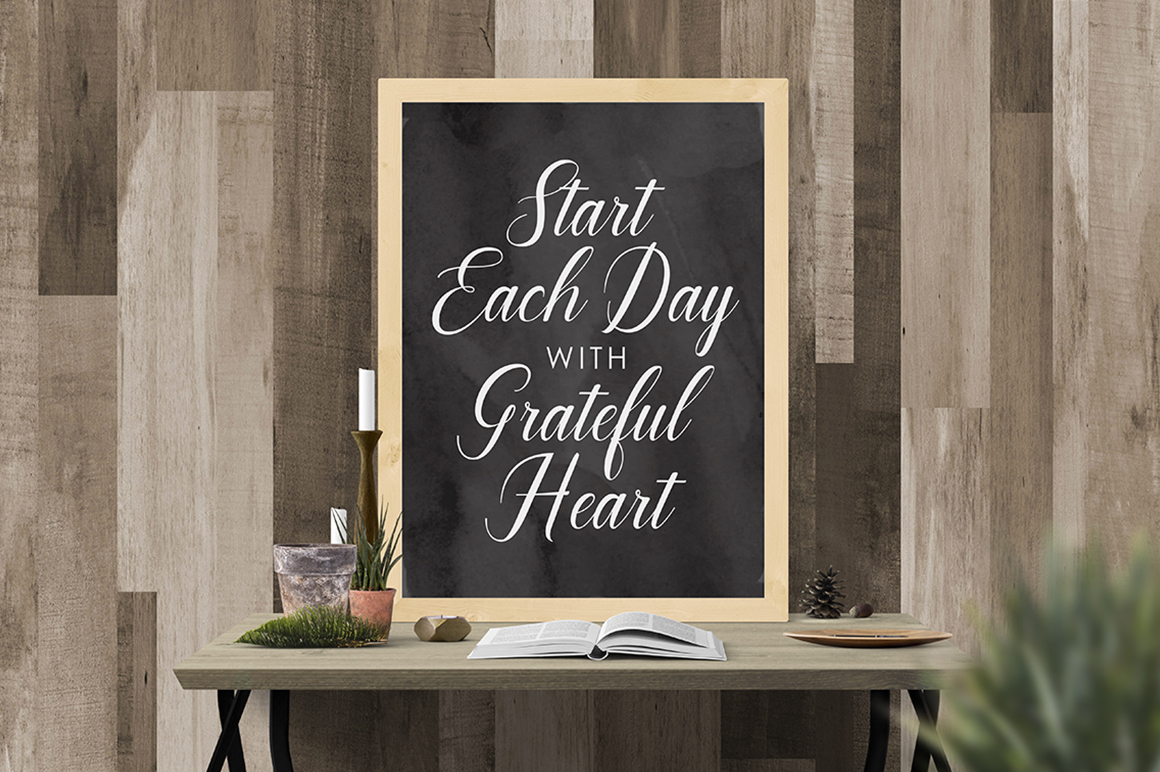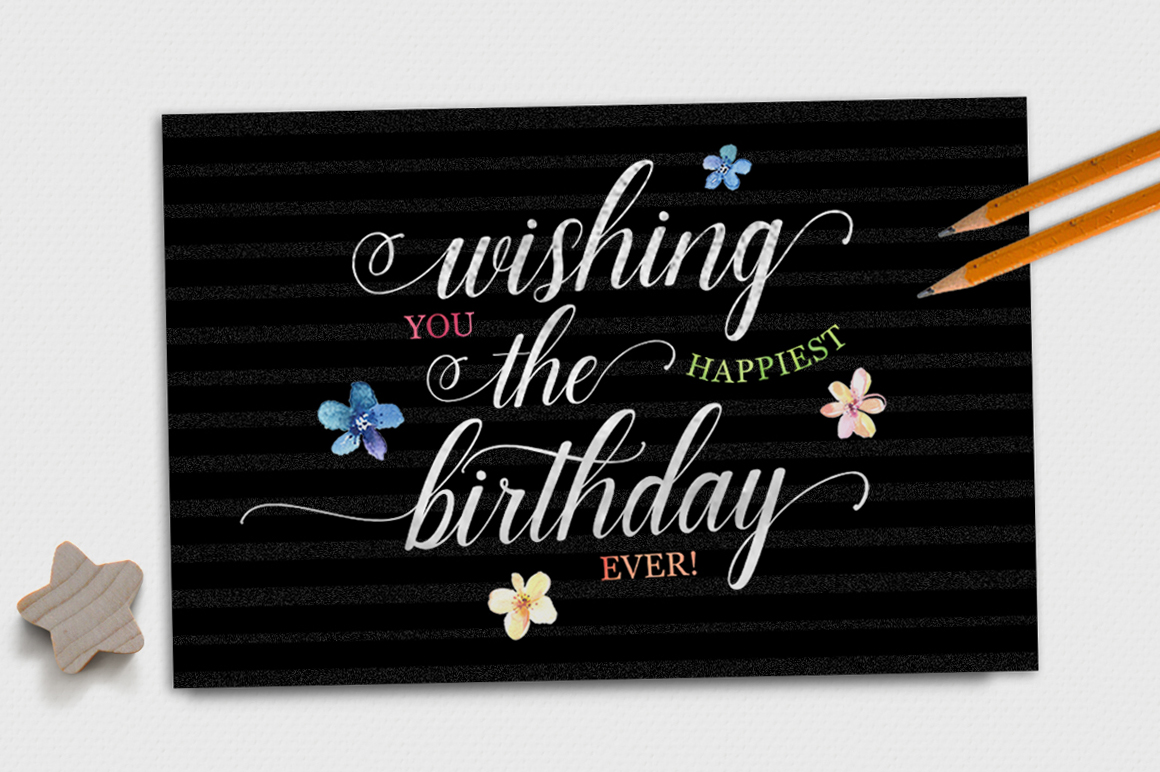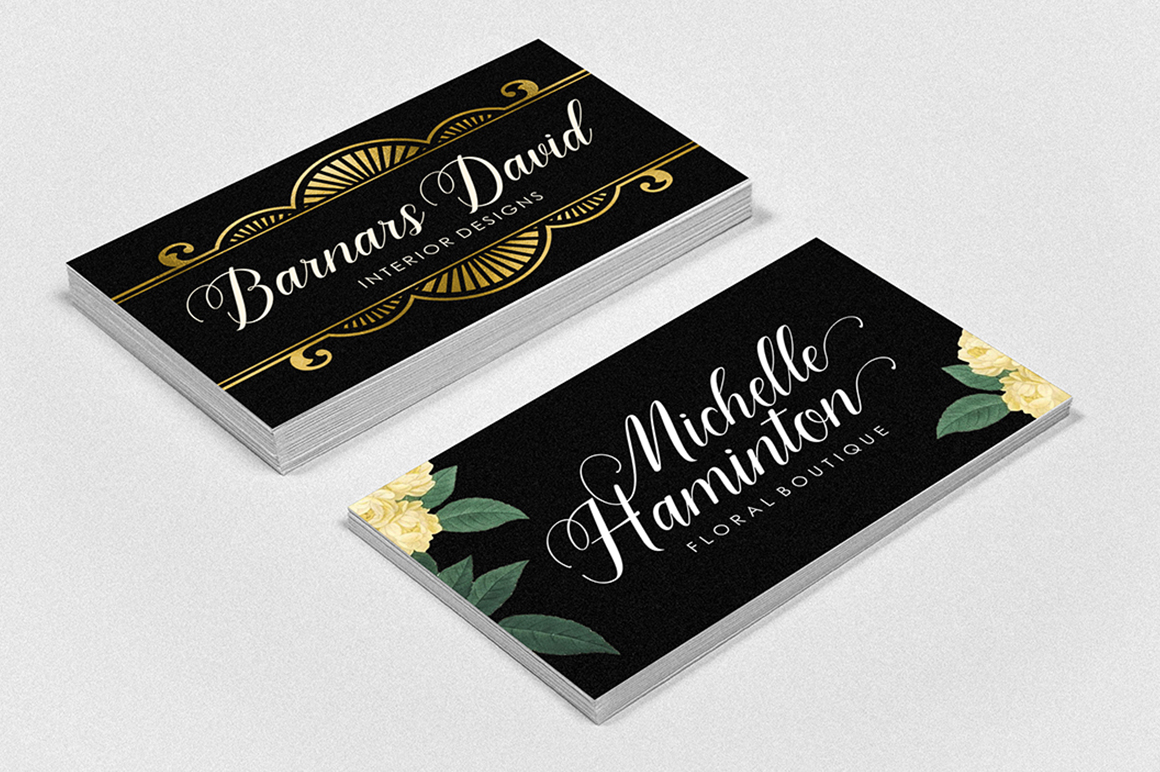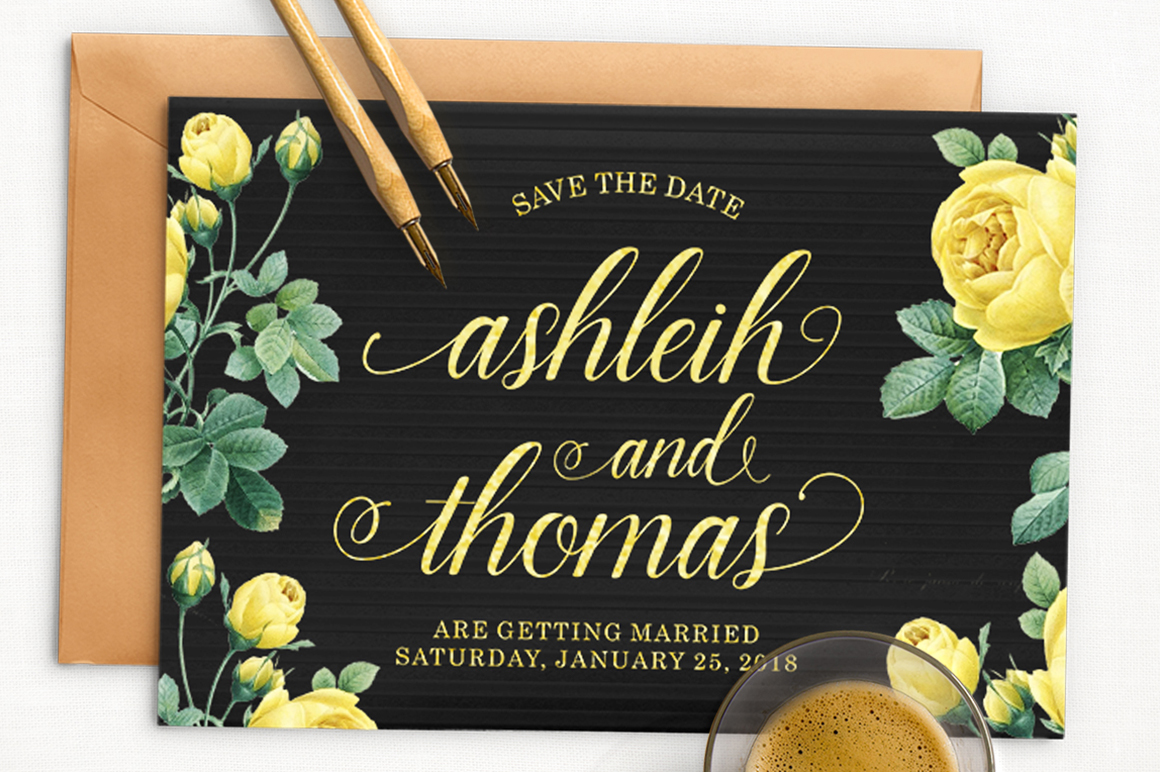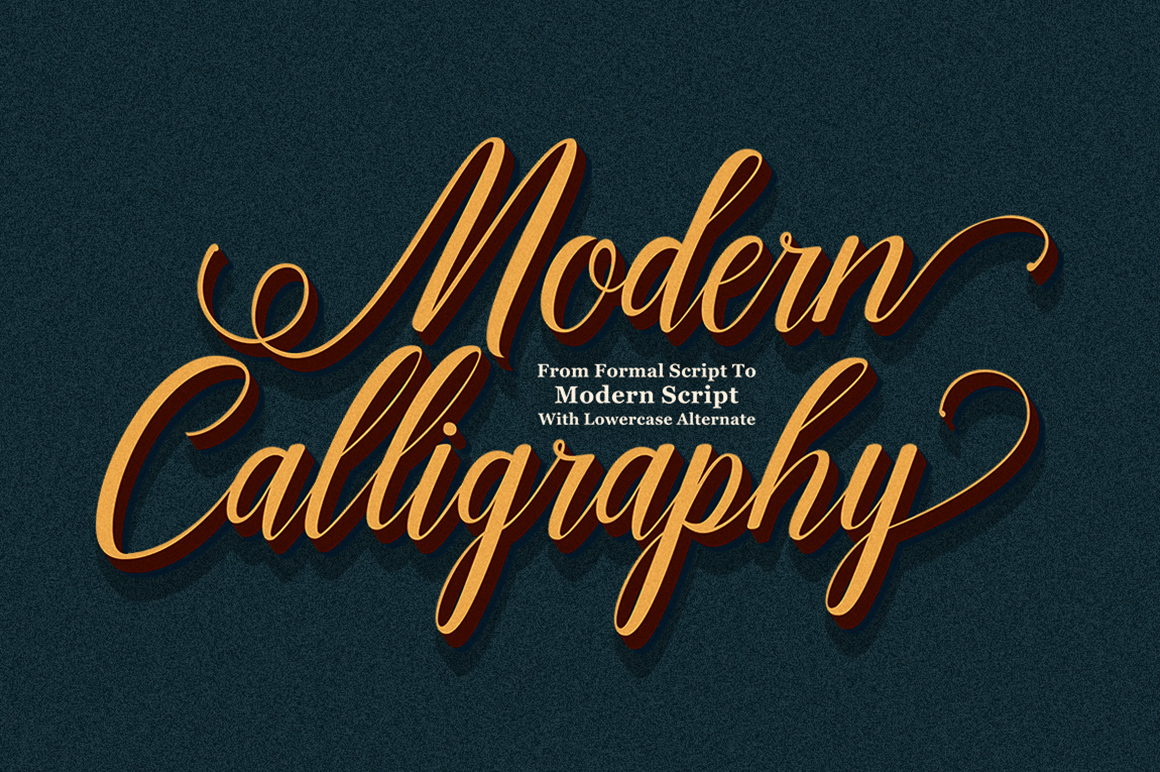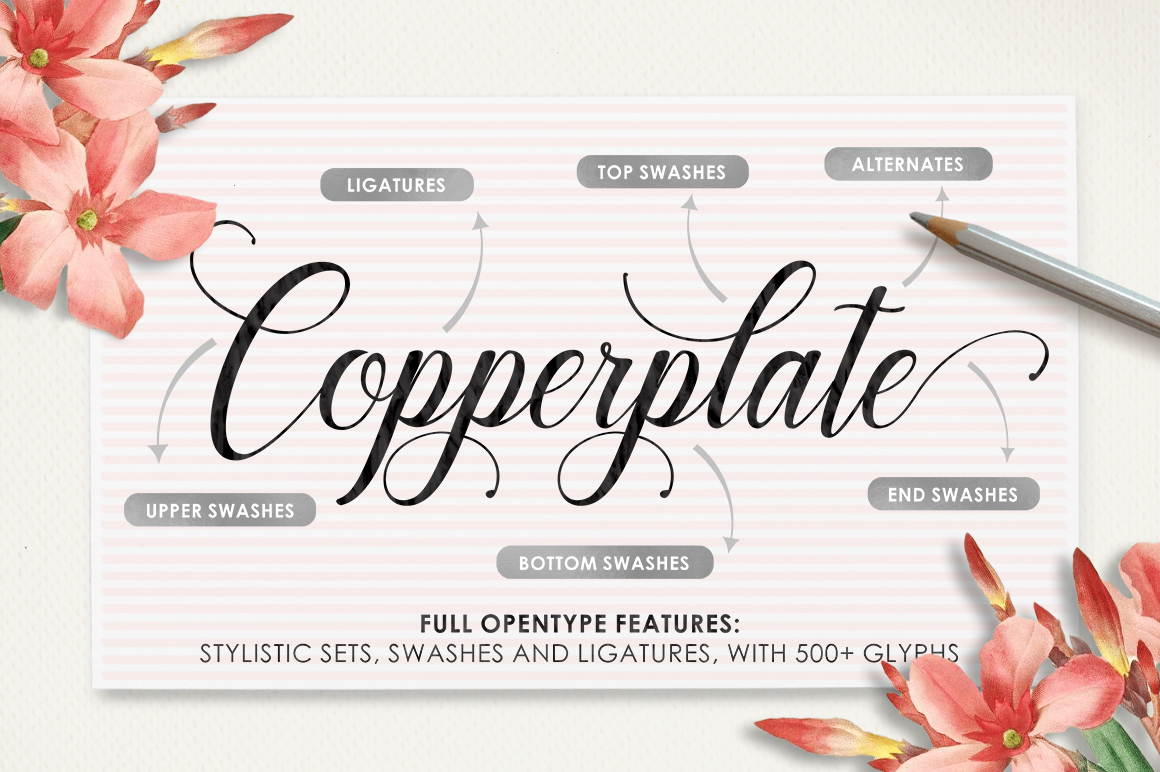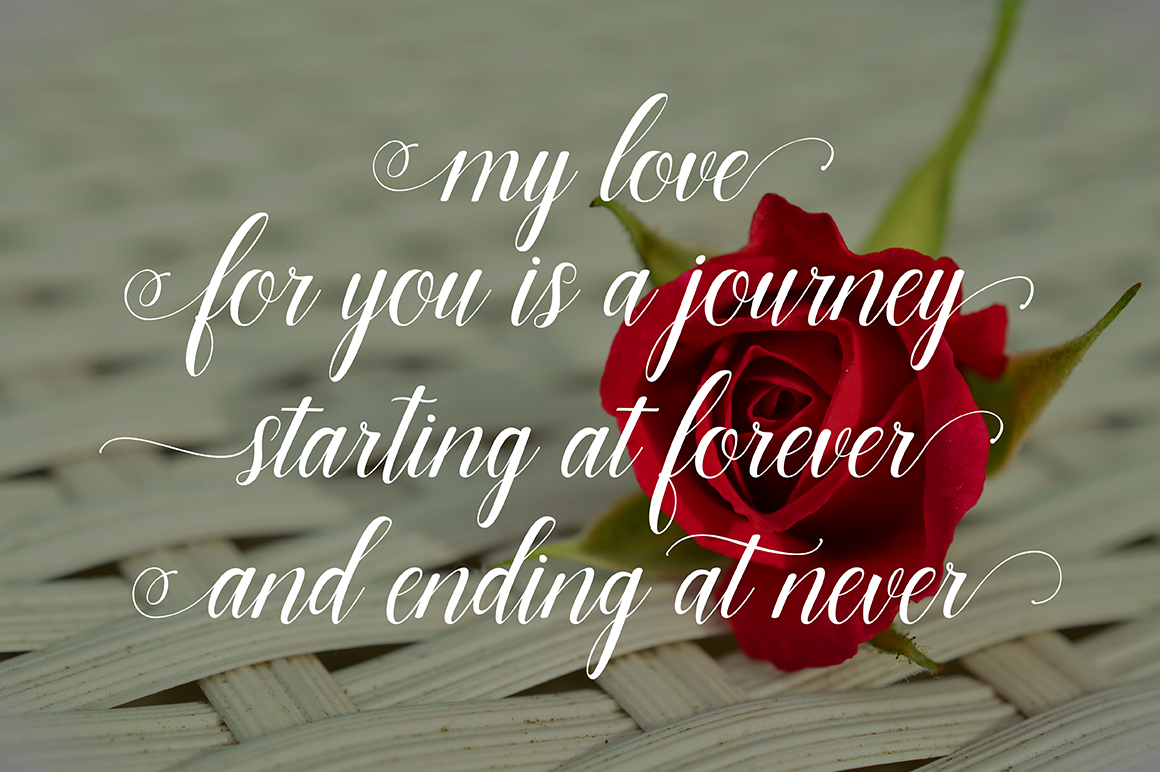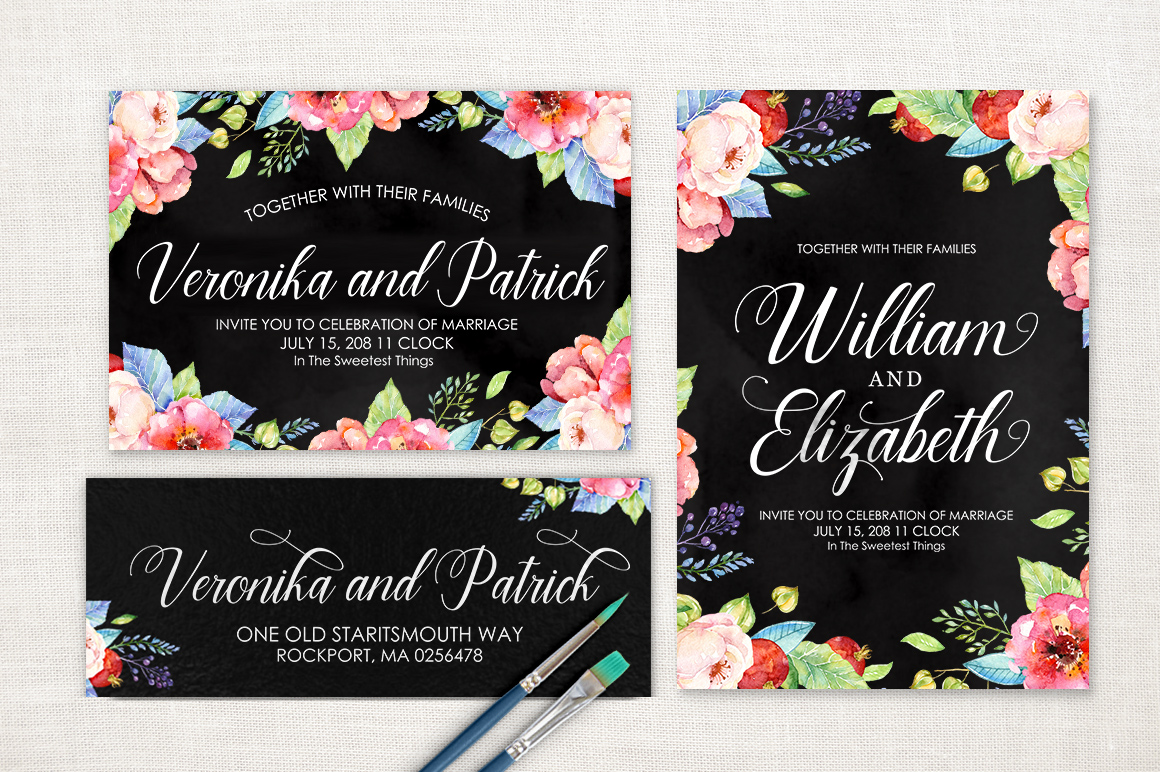
Marioline Font
About Marioline Font
Marioline Script is a stunning handwritten typeface with classical roots.
This formal script has a elegant touch which makes it perfect for wedding & birthday invites, logos, branding, greeting cards, print and much more.
Marioline features over 500 unique handmade glyphs and 315 alternate characters.